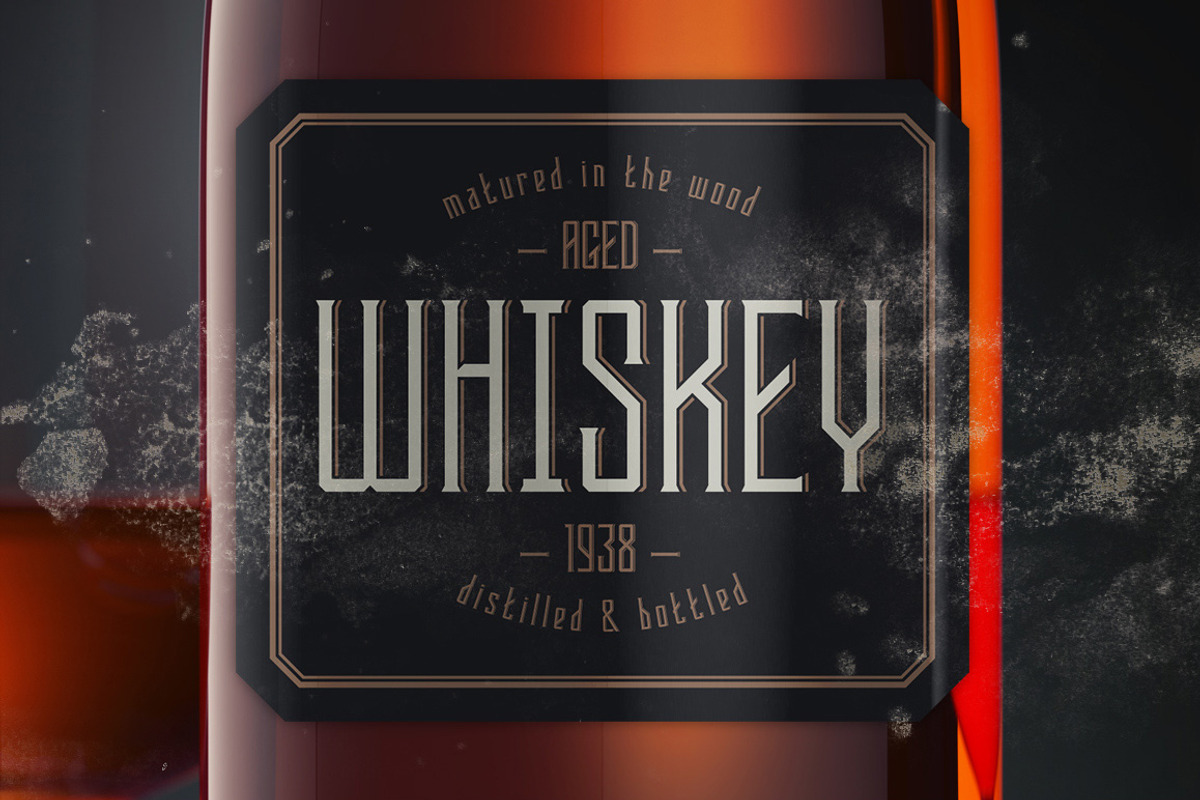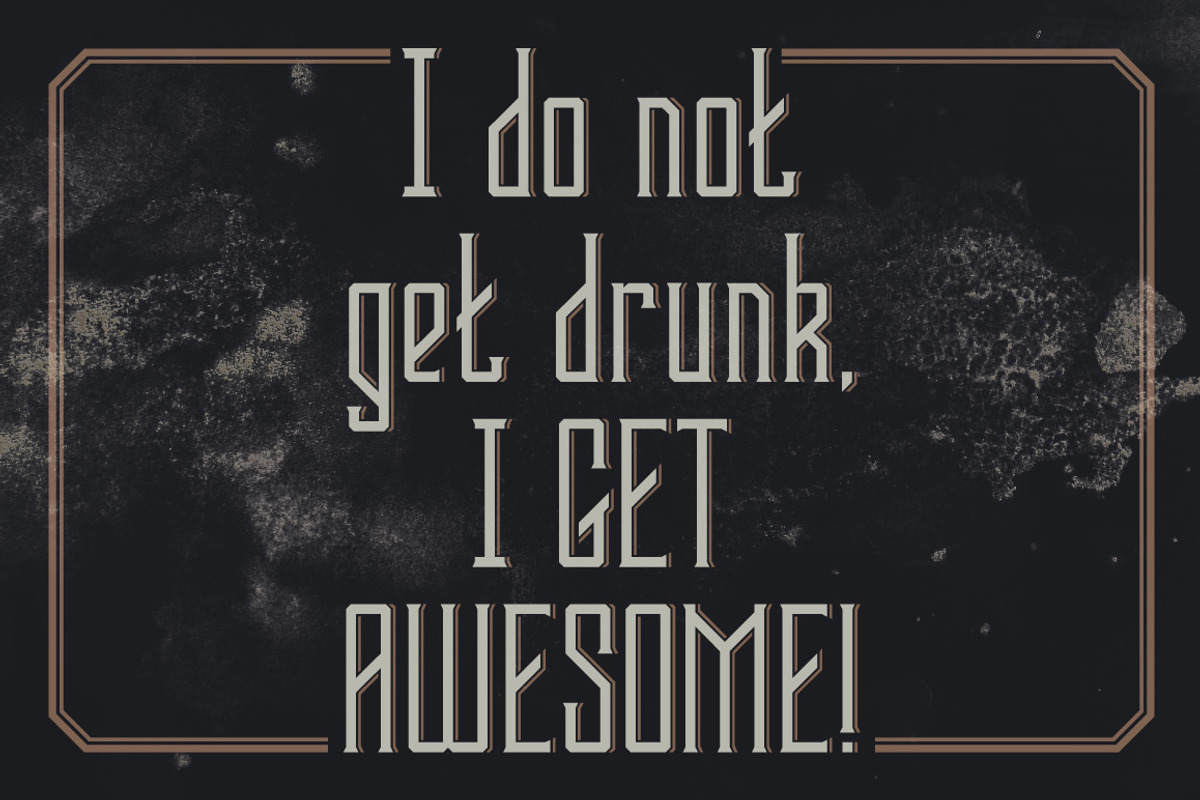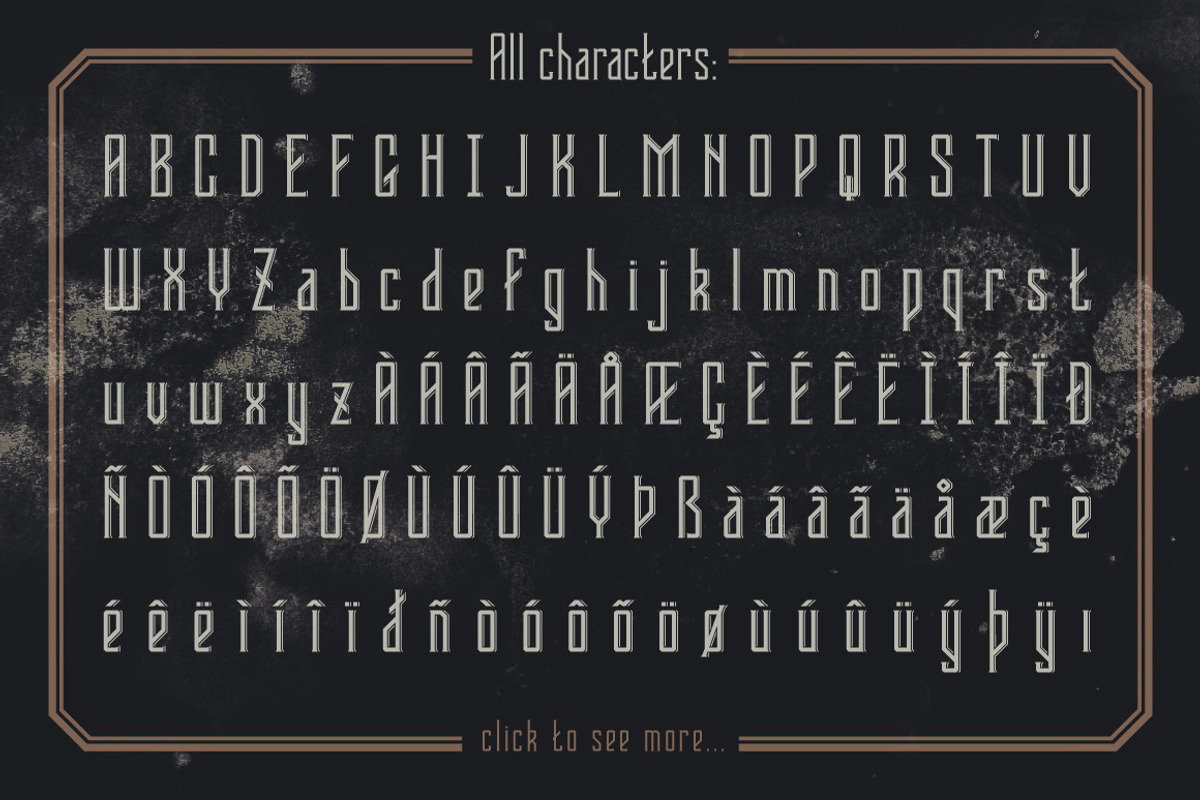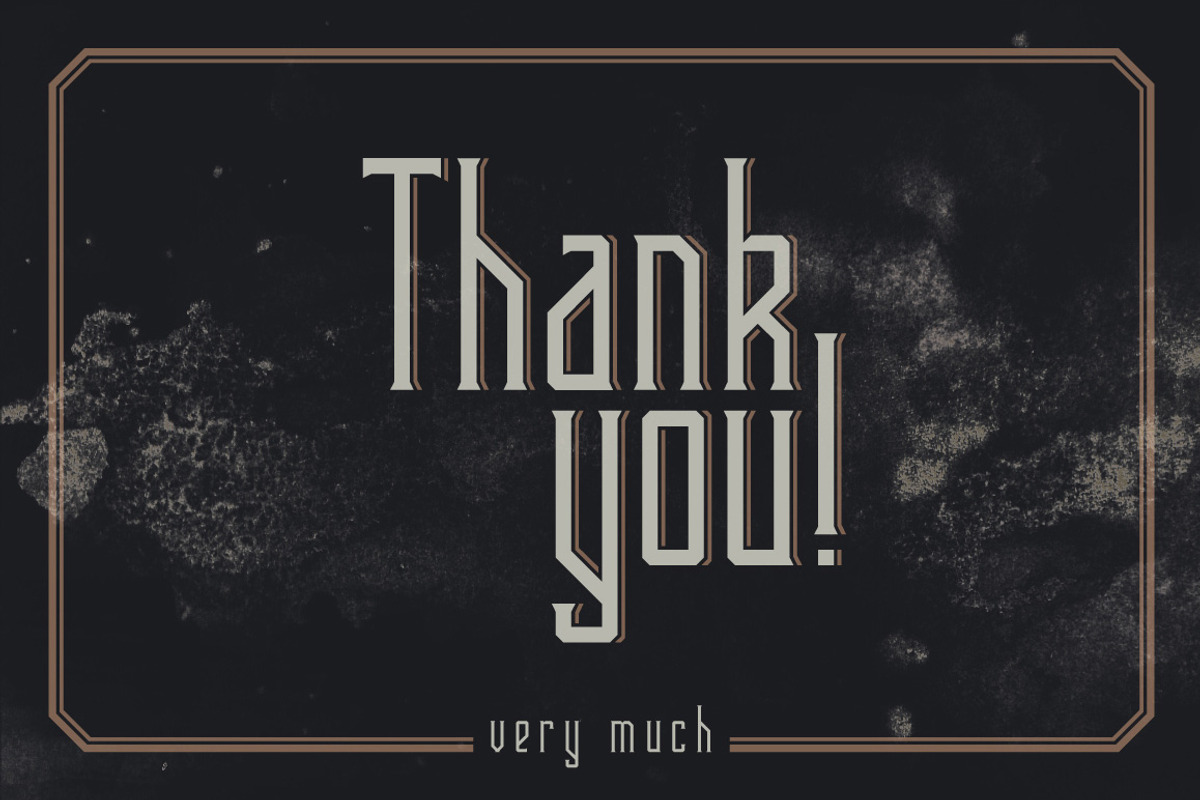
Bootleggers font
Bootleggers font by Gleb Guralnyk is a font selected for branding, posters, packaging, typography.
- It's made of strong straight lines with tiny and accurate accent lines.
- Bootleggers Regular
- Bootleggers Lines Regular
- Bootleggers Simple Regular
Why Bootleggers font is worth a look
Bootleggers font by Gleb Guralnyk fits naturally into Branding, posters, packaging, typography.